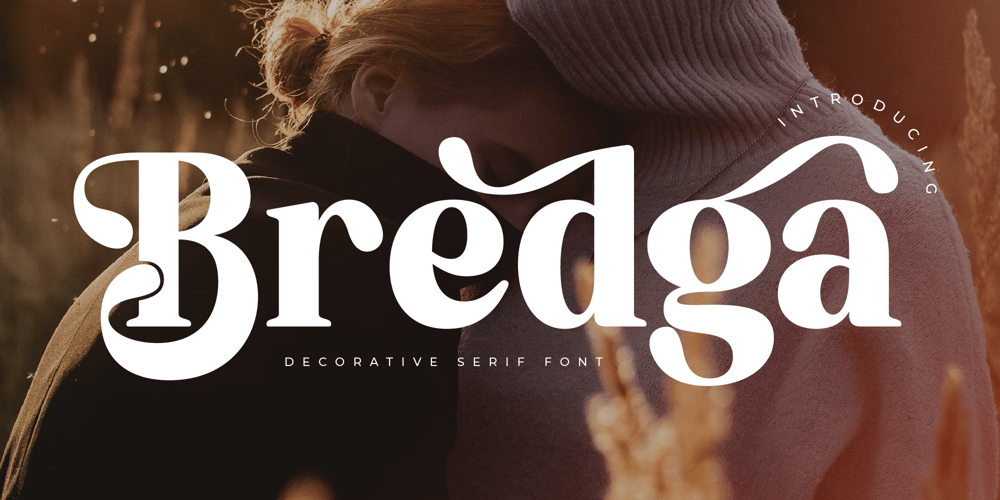
Bredga
Bredga font
Bredga Font Family was designed by Heru Utama Putra and published by Letterena Studios. Bredga contains 2 styles and family package options. Bredga is a luxurious serif font that captivates with its regal charm and refined aesthetics. Crafted for grandeur, its stately serifs and intricate details exude sophistication. Elevate your designs with the timeless elegance of Bredga, a font that commands attention and exudes opulent style.